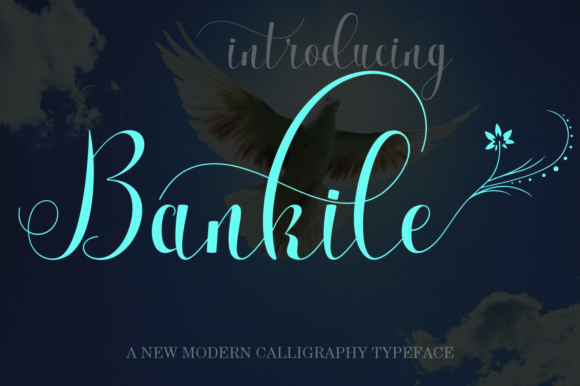
Dive into the world of sophistication and charm with Bankile Font, a masterpiece that gracefully blends the timeless allure of classic calligraphy with the vibrancy of modern design. Step into a realm where elegance effortlessly intertwines with innovation, creating captivating compositions that leave a lasting impression.
Bankile Font, a brainchild of nasristudio, is more than just a font—it's an artistic odyssey that invites you to explore the depths of creativity. Its meticulously crafted characters dance across your screen, painting a picture of beauty and poise. Whether you're a seasoned designer or just starting out, Bankile Font will elevate your projects to new heights of visual splendor.
With its versatile nature, Bankile Font adapts seamlessly to a myriad of design endeavors. From elegant wedding invitations to sleek logos, from captivating social media posts to eye-catching posters, Bankile Font effortlessly enhances your designs, lending them an air of sophistication and charm. Its fluidity and grace make it the perfect choice for adding a touch of refinement to any creative endeavor.
Embrace the artistry of Bankile Font and embark on a journey of design excellence. Let your imagination run wild as you explore the endless possibilities that this exceptional font offers. Elevate your designs, captivate your audience, and leave an unforgettable mark with Bankile Font.